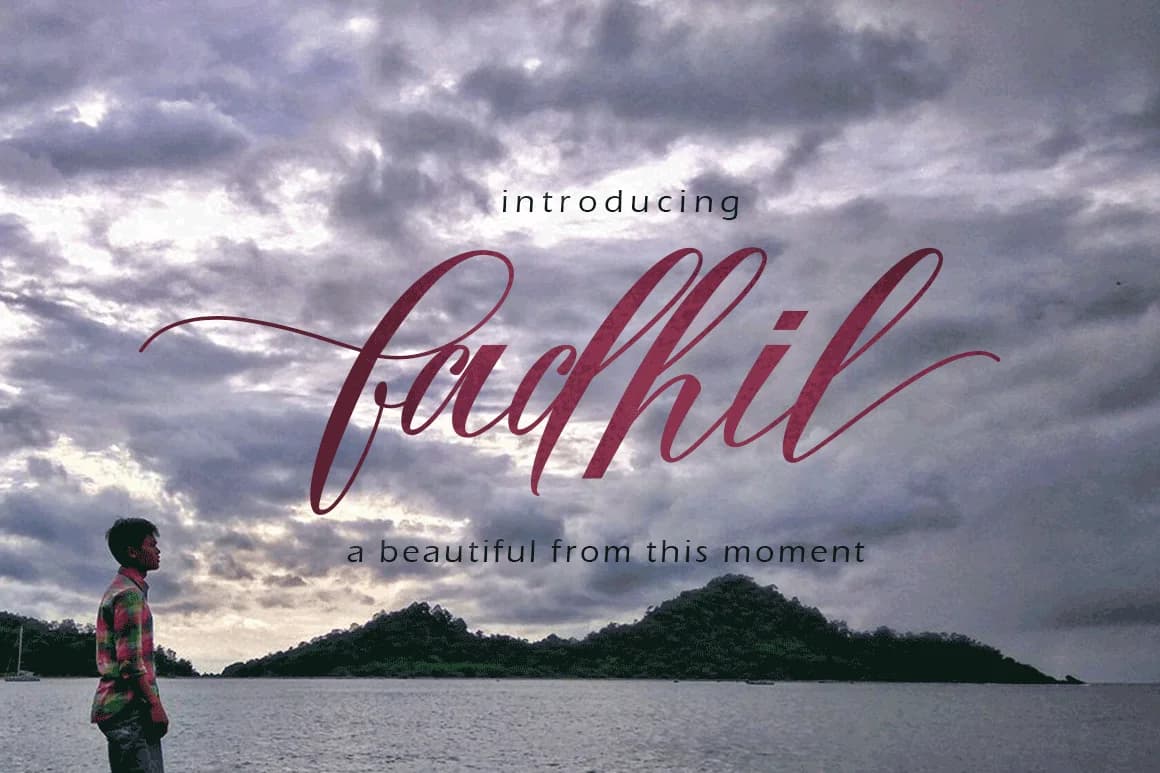
Fadhil Font by Meutuwah is a fluid handwritten script that captures the warmth and personality of authentic pen-on-paper lettering. With its flowing strokes and approachable character, this typeface brings organic, human warmth to any design where authenticity matters. The font's inherent expressiveness makes it particularly well-suited for wedding invitation suites, where couples seek that personal, handcrafted aesthetic that makes guests feel valued and celebrated. Branding for small creative businesses, from boutique bakeries and indie stationery companies to freelance illustrators and craft studios, benefits from Fadhil's accessible elegance and memorable presence. Beyond formal occasions, the typeface shines in product labeling for artisanal goods and maker merchandise, especially for creators selling through platforms like Etsy or at farmers markets where handmade appeal is essential. Its casual yet refined character works equally well for custom journal covers, personalized gift tags, greeting card designs, and custom event signage. The versatility of this handwritten script means it adapts gracefully across both digital and print applications. Whether you're creating social media headers, designing packaging for specialty food items, or producing DIY craft signage, Fadhil brings genuine personality and warmth to your work. Explore Fadhil Font on Creative Fabrica and add this distinctive handwritten script to your creative toolkit.
- Elegant, Flowing, Fadhil
Fadhil Font is a script font that shines as a display or heading face. Pair it with a clean sans-serif or serif font for body text β the contrast creates a clear hierarchy while the two styles stay balanced and easy to read.
Fadhil Font
by Meutuwah